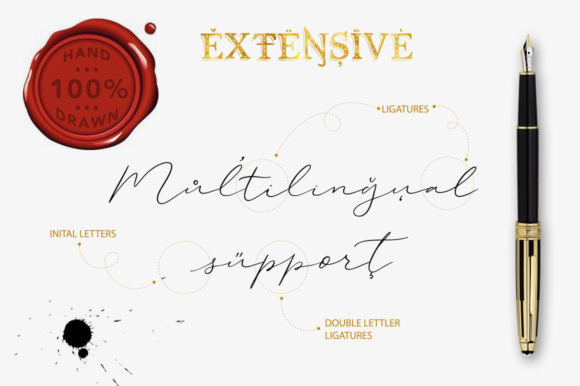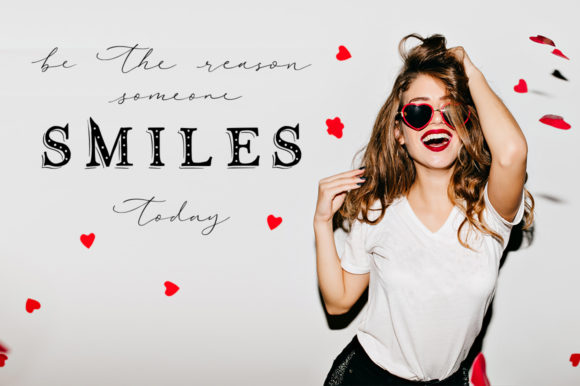
Broadway Lights Duo Font
db-ku.com - Script & Handwritten -- The Broadway Lights is a beautiful gentle pair of script and sans serif fonts. The expressive hand drawn fonts with a vintage feeling can be used separately but also can be combined perfectly.